White and magical winter is associated with snow. it is a time when the thermometer columns are sliding down and we are experiencing a complete winter ecstasy. So this post is not unnecessarily created by us, which will be much needed by many designers on the occasion of the upcoming holidays. Here we have created a snowy fonts collection for all your winter design needs. Keep a good mood and enjoy!
Snow Font Family
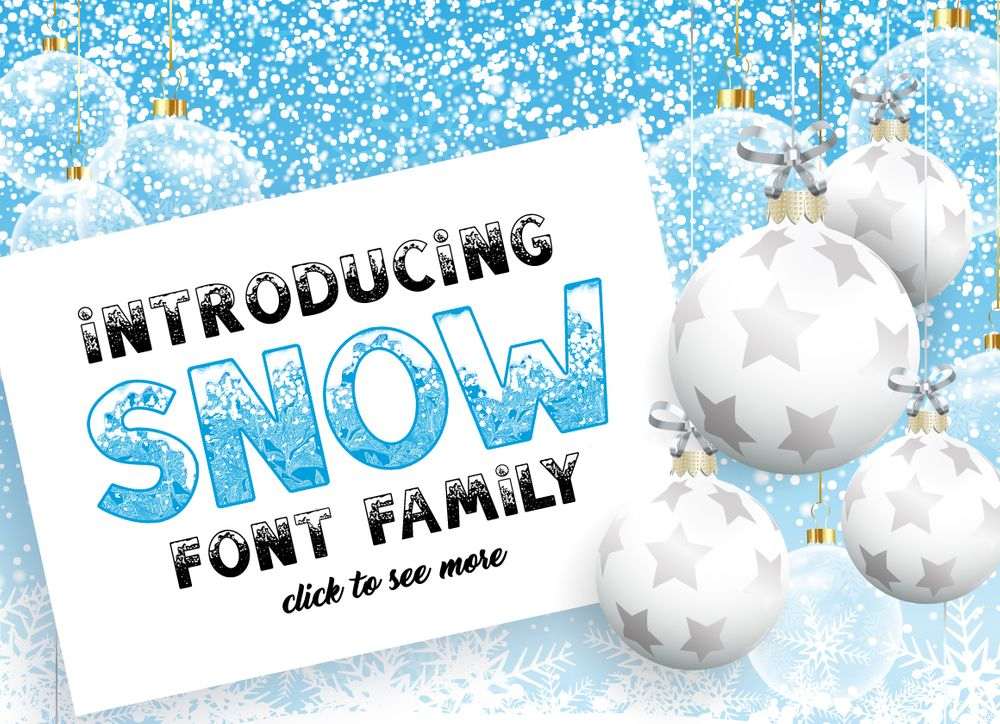
Awesome and festive snowy font family with amazing frosty textures. Perfect for your postcards, invitations, cards, backgrounds, posters, flyers, decorations, banners, web design and all that your imagination can create.
Christmas Snow / Hand Drawn Font
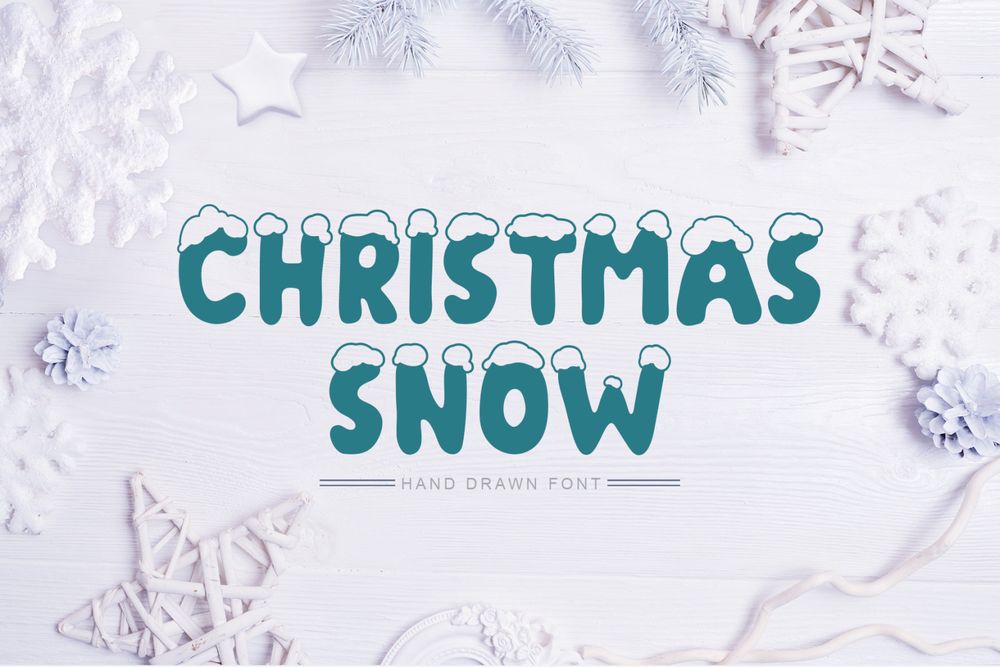
Christmas Snow hand drawn font is beautiful instrument for designers, blogers and everybody who loves doodle scandinavian or hygge style. Perfect for titles for kid`s books, scrapbooks, logos, icons, phrases or quotes for winter greeting cards and etc.
Hot Snow Typeface
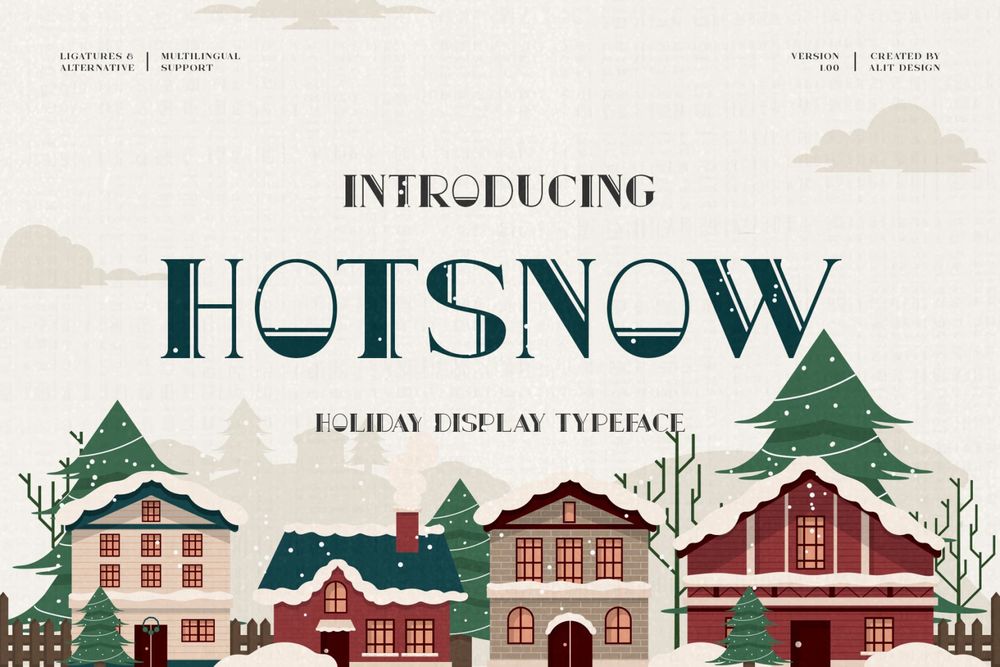
Hot Snow typeface was created from the concept of the end of the year which has many events such as Christmas, New Year and winter. It can be used for the design of posters, big sale signs, greeting cards, packaging designs, New Year designs and so on with the winter season concept.
Ice Season Kids Font
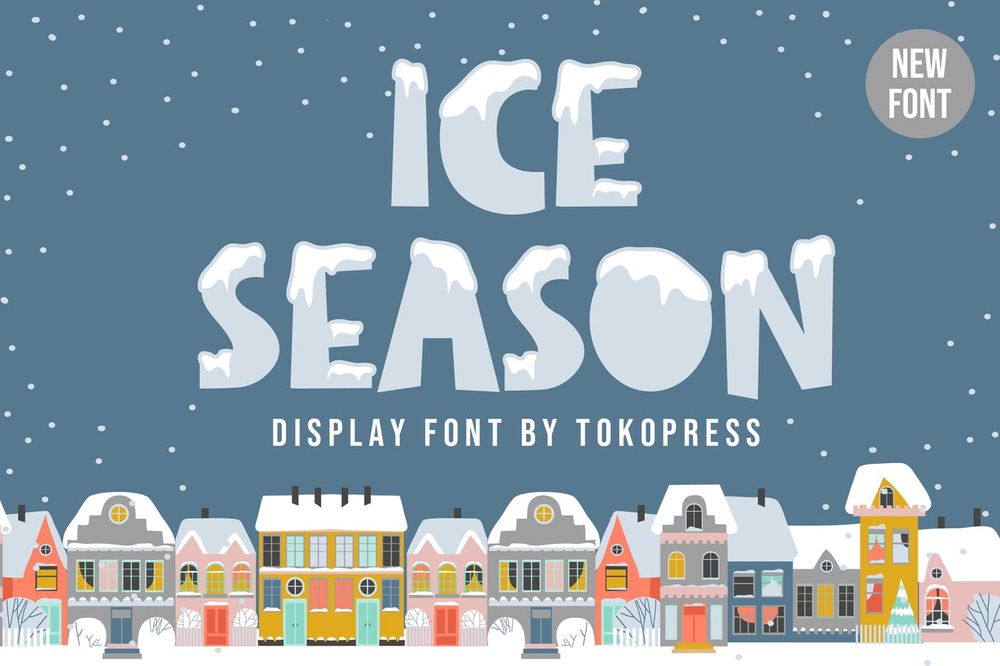
The happiness and joy of snow weather. This font is all about that. Perfectly suits for kids books market, online games, stationary, school supplies fonts, posters, movie titles, youtube covers and etc.
Southea – Winter Font
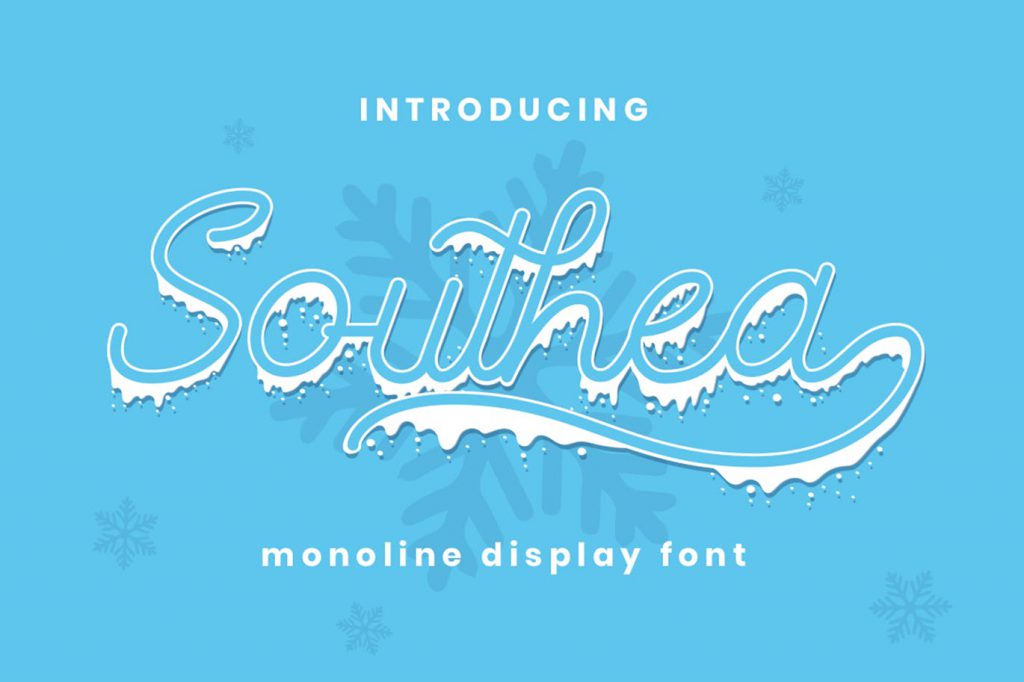
It is a winter monoline display font, come with 2 style regular and display. It perfectly match for winter and Christmas theme designs like banners, book covers, t-shirts, branding and etc.
Winter City Kids Font
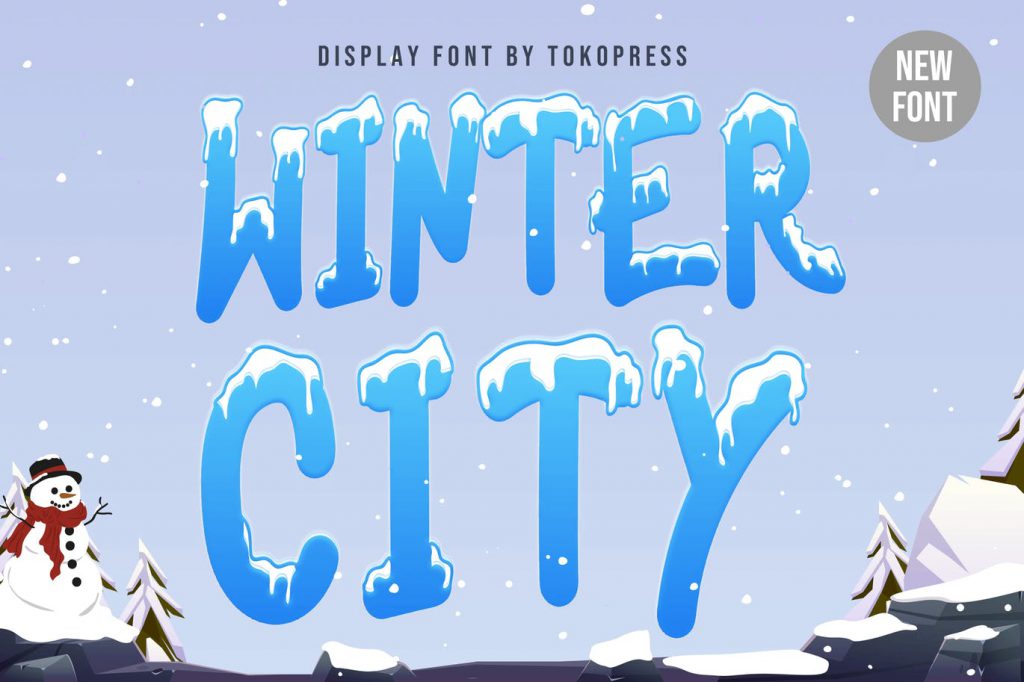
Lovely winter themed font for kiddy design projects. Perfect for kids books market, online games, stationary, school supplies font, posters, movie titles, youtube covers, youtube thumbnails, social media page covers and etc.
Snowy Season – Kids Font
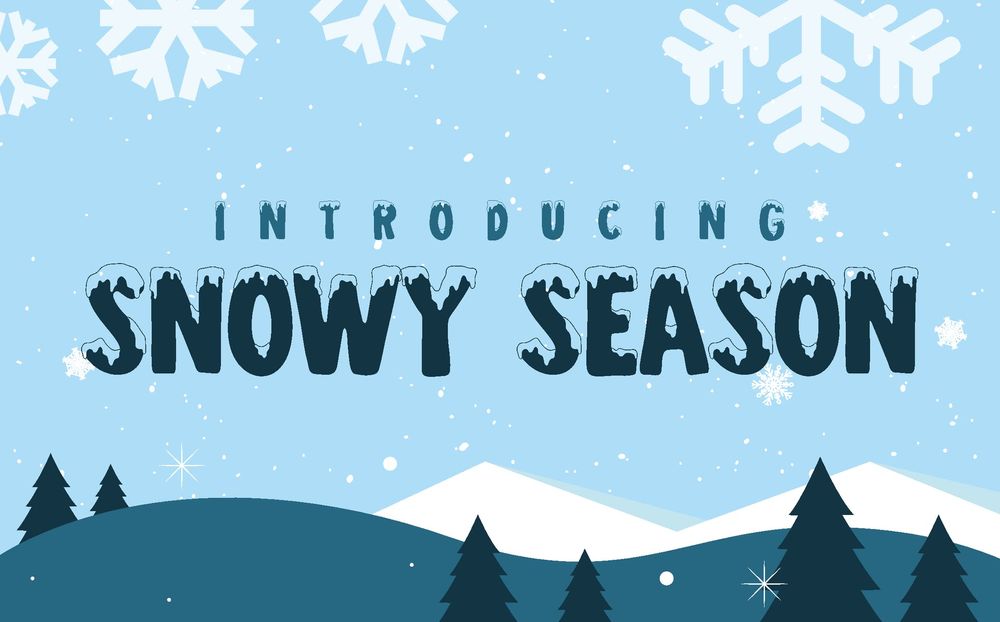
Cold but cozy atmosphere are around. Take a look at this amazing snowy font that you can create something special. This font is ideal for online games, posters, movie titles, fast food menu, magazines, youtube covers, youtube thumbnails, social media page covers and etc.
Snowy Dahlia – Christmas Font
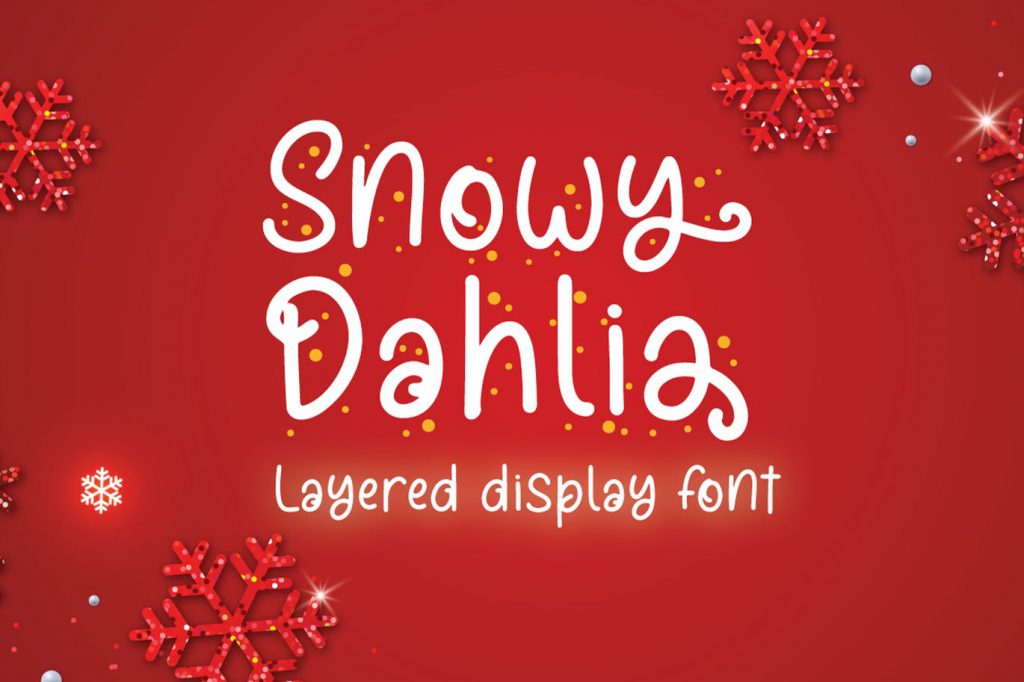
It is a script Christmas font with display snow font perfect for winter designs such as branding, logos, invitations, stationery, social media posts, product packaging, merchandise, blog designs and etc.
Coolest – Icy Frozen Font
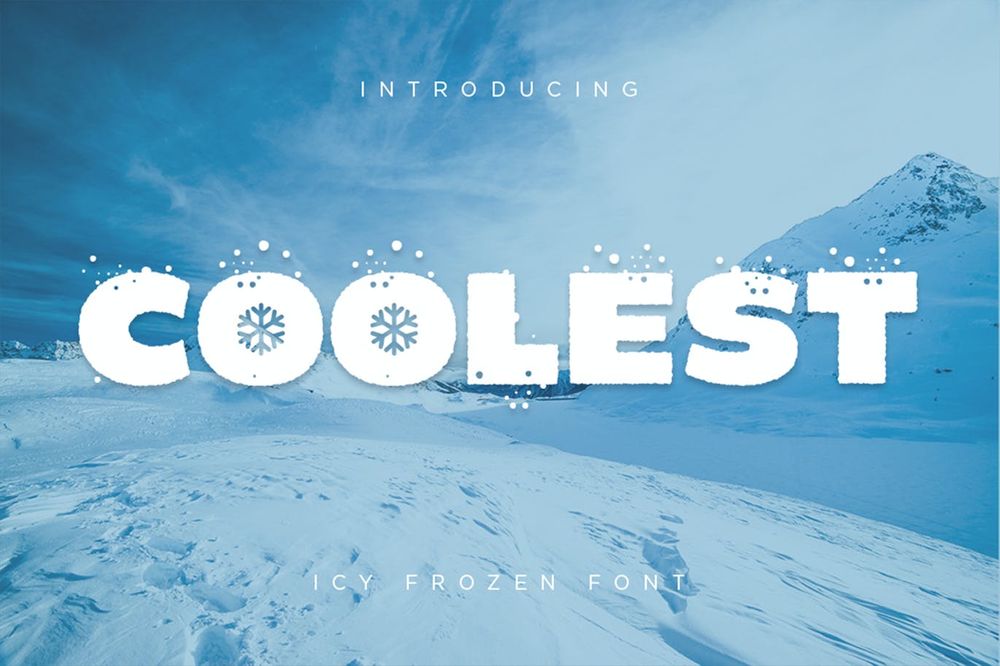
Inspired by the icy vibes and snowy slash winter season to chill your day every day. Perfectly fit for any kind of project like logos, branding, social media content, food, beverages and etc.
Blanket of Snow Font
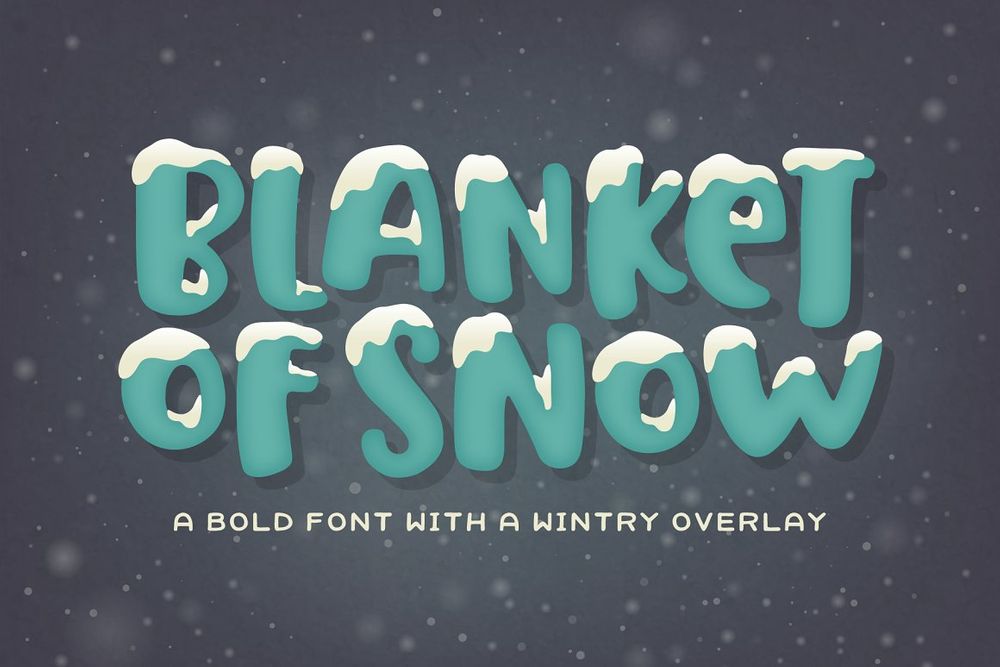
Blanket of Snow is a wide, bold font packed with personality. It can be used alone, or with the overlay version placed on top for a snow-capped effect. Ideal for kids book covers, posters, greeting cards ad etc.
Big Snow Script Font (Free)
An awesome snowy font free for personal and commercial use. It is perfect for signatures, branding, wedding, fashion, photography, titles, posters, social media, covers and etc.
Snow Blue – Display Font
It is playfull, display font. Ideal for kids posters, flyers, cover children books, cartoons, comic and etc.
Snowes Brush Font
It is a friendly, casual and fun display font. This font is perfect for children themed designs, especially when combined with bright colors such as logos, branding, social media and etc.
Iceberg – Cold Unique Display Typeface
It is a bold and solid display font that has unique feeling. The font is suitable to use for many occasion such as game, music, movie title, brand, technology, space and many more.
Snow White Font
It is simple cute multipurpose handmade font, suitable for many projects such as children books, quotes, logos, headings, titles and etc.
Happy Snowy / Font Trio
It is funny handlettering font crafted from handlettering ideas in typeface. This font includes full of alphabetical glyphs, numerals, and punctuation. So perfect for invitations, monograms, wedding, fashion, branding, label or logotypes.
Christmas Snowy Font
Christmas display snowy font suits perfectly for holiday theme needs such as Christmas or New Year events. Ideal for greeting cards, posters, covers, tittles and etc.
Frostine Snow – Christmas Font
Inspired by winter snow, Frostine Snow is Christmas font and suits perfectly for flyers, posters, kids book covers, greetings cards, postcards and etc.
Xmas Cookie Font Family
Modern display colorful grotesque font. Ideal for Christmas theme such as decorative elements, lettering, posters, flyers, book covers and etc.